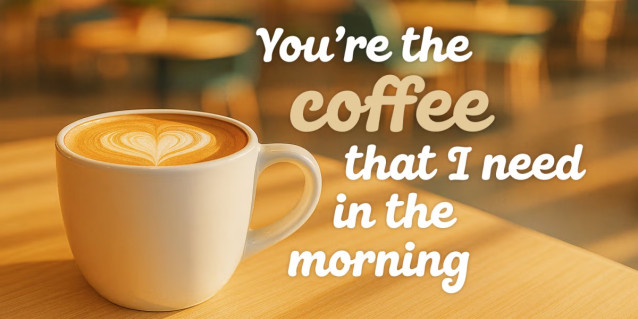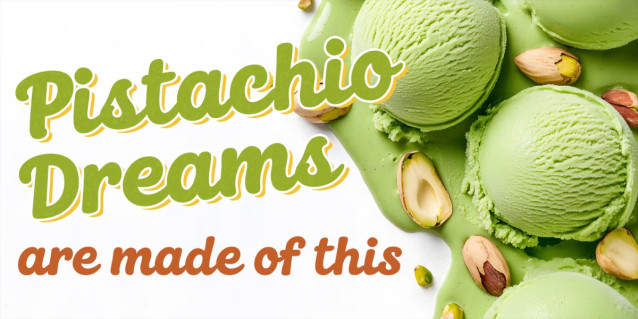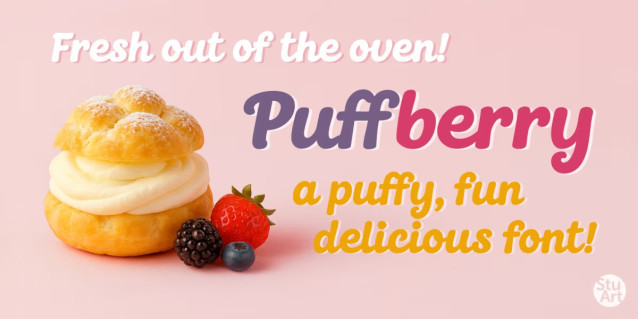
Puffberry Font
Puffberry Font is a bold, curvy script font that brings instant joy to every design. With its smooth hand-lettered strokes, playful curves, and natural flow, this font feels like a berry-sweet treat—warm, welcoming, and wonderfully expressive.
Puffberry delivers a perfect blend of fun and polish to logo lettering, packaging, apparel, or social media content.